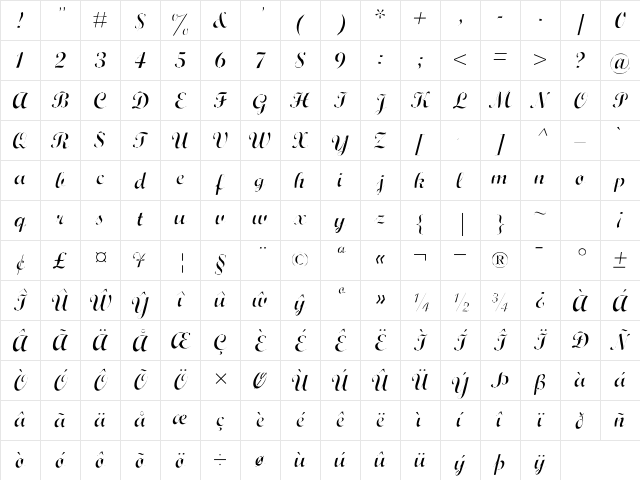
Wrexham Script Light Light
Design Context for Wrexham Script Light
Wrexham Script Light flows with the natural rhythm of handwritten lettering, making it ideal for designs that call for warmth and personal expression. Its slender proportions lend an understated elegance to any composition.
Font Pairing: Combine Wrexham Script Light with a simple geometric sans for maximum contrast - the tension between flowing curves and clean structure is a classic typographic pairing.
Pro Tip: Use Wrexham Script Light for short runs of text - names, titles, or taglines. Extended body copy in script faces tires the eye quickly.